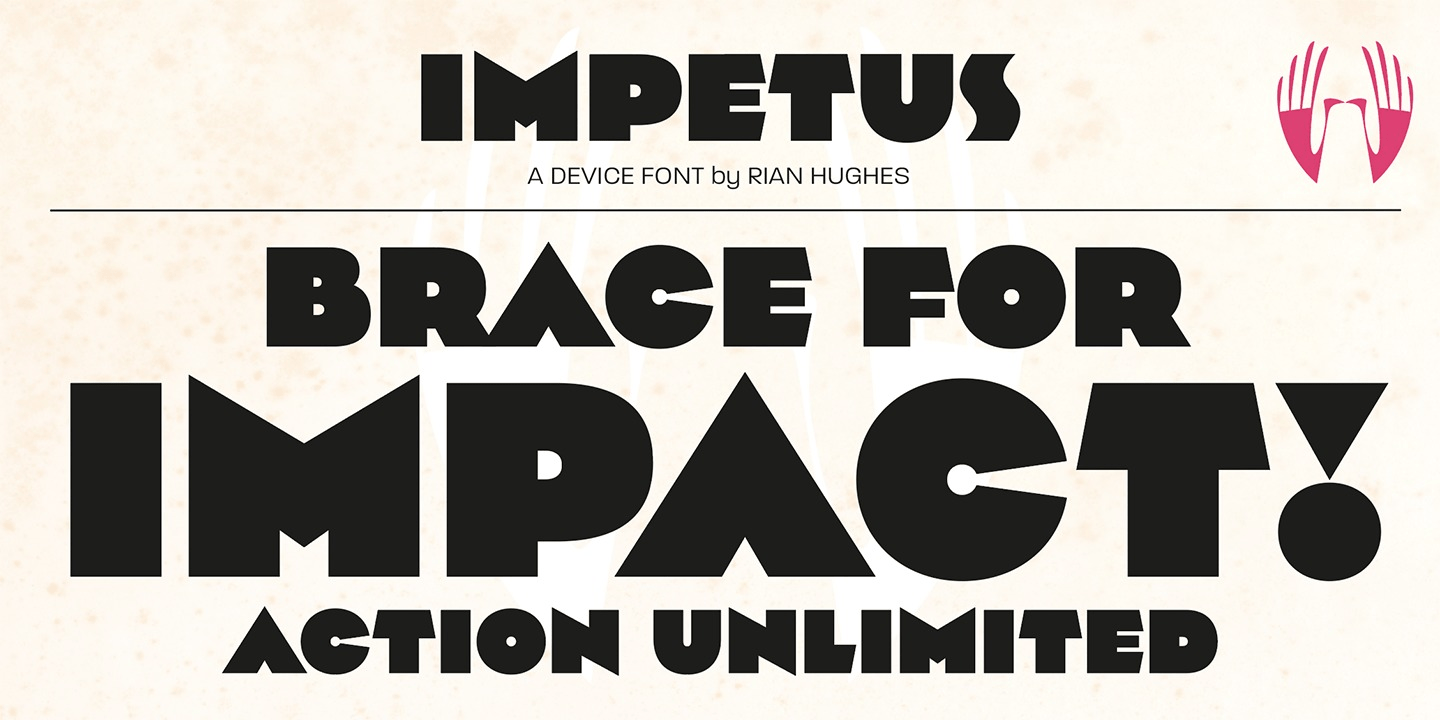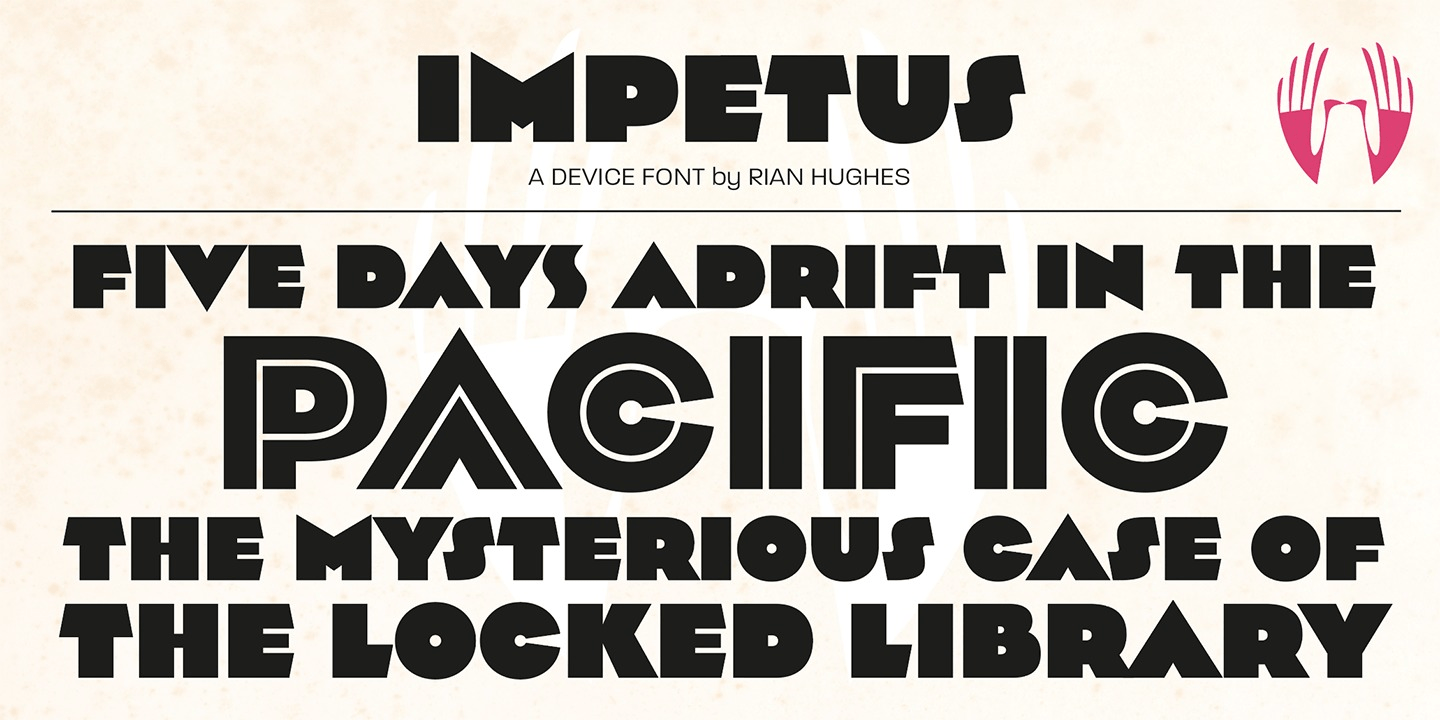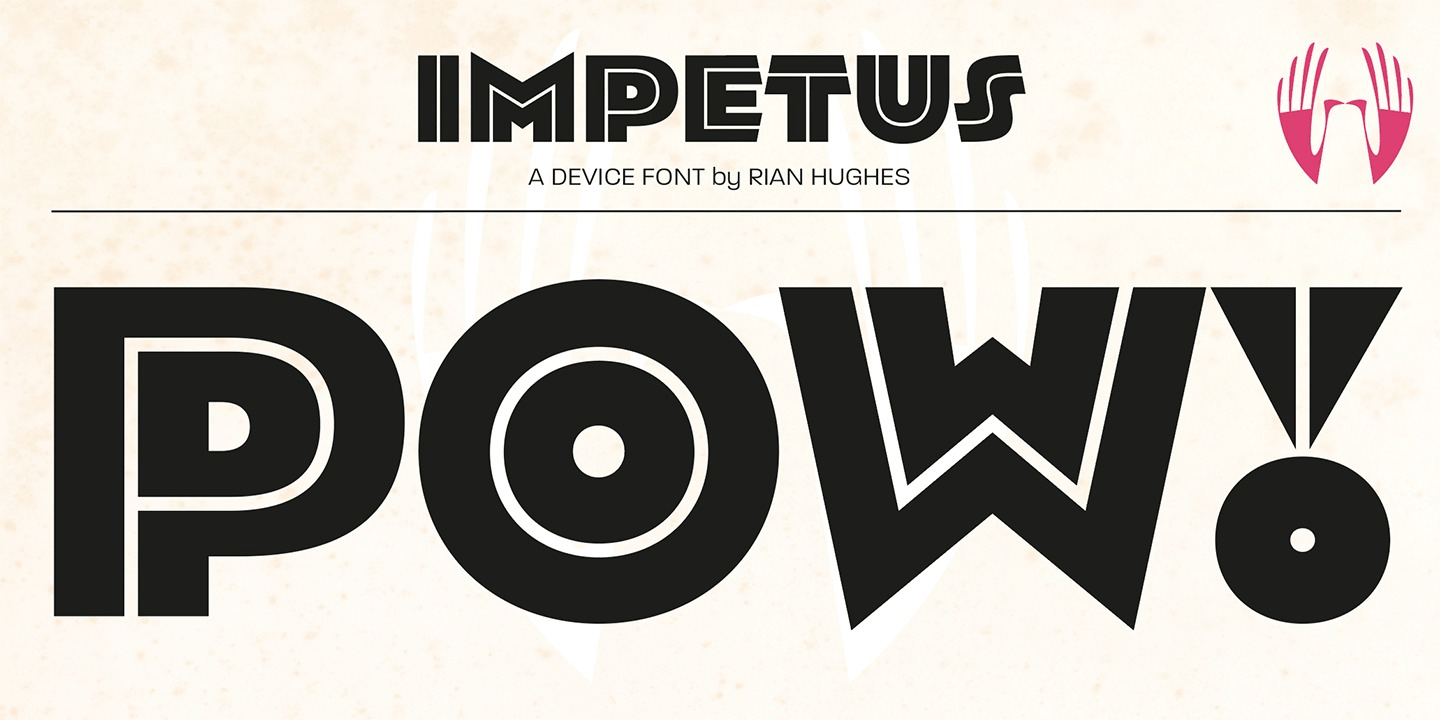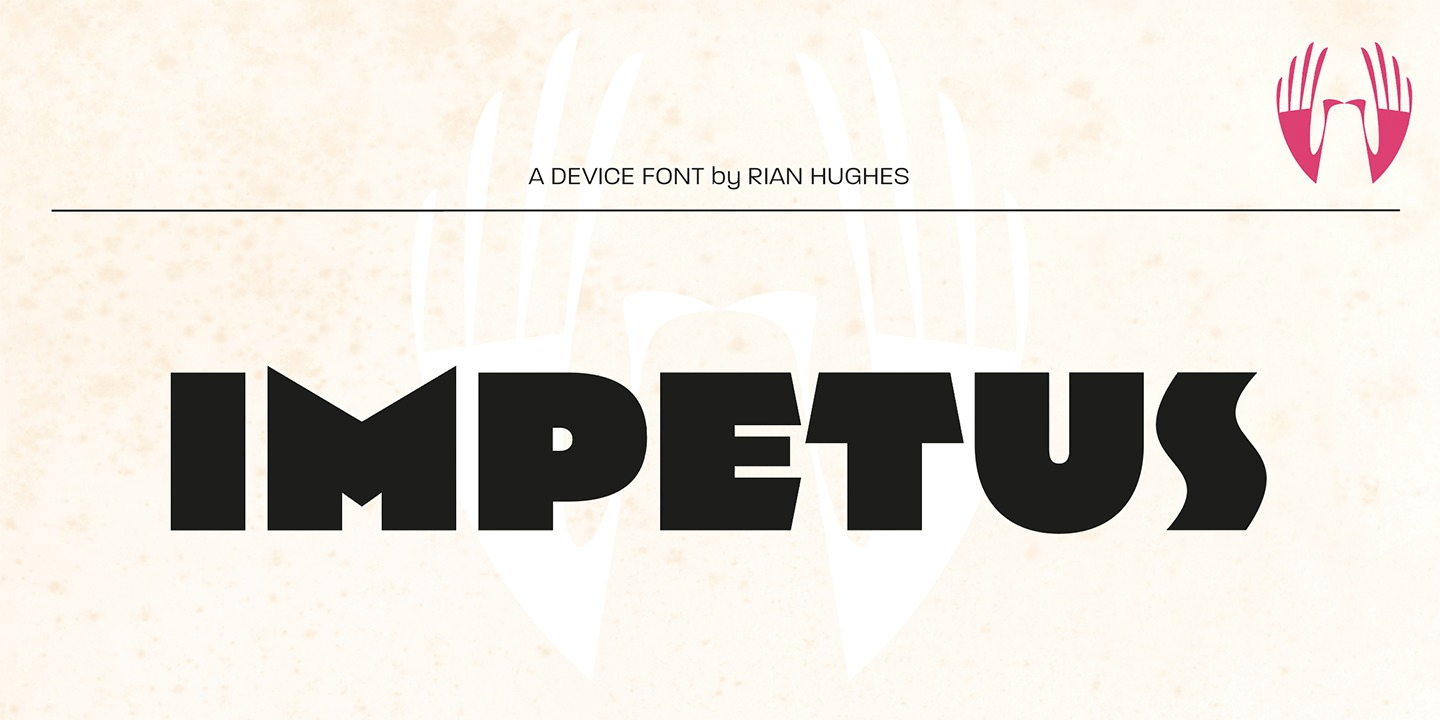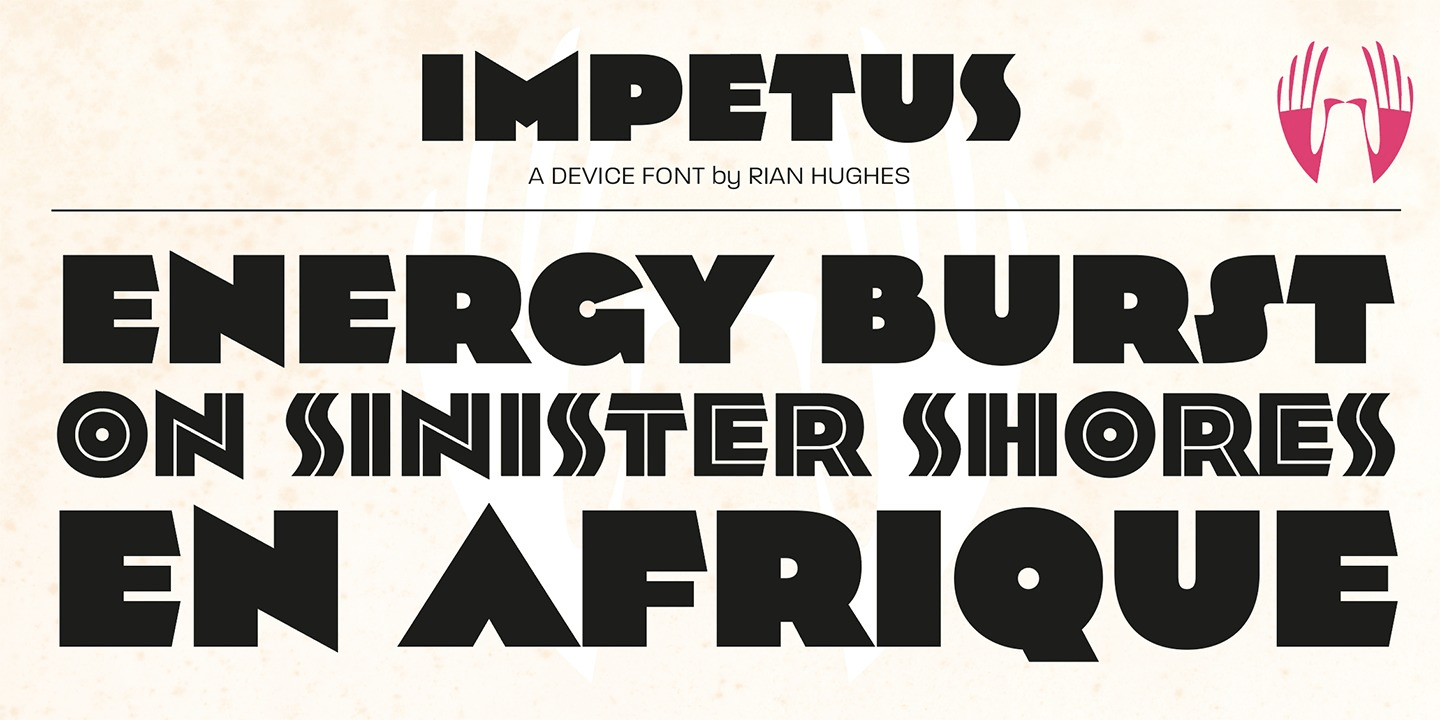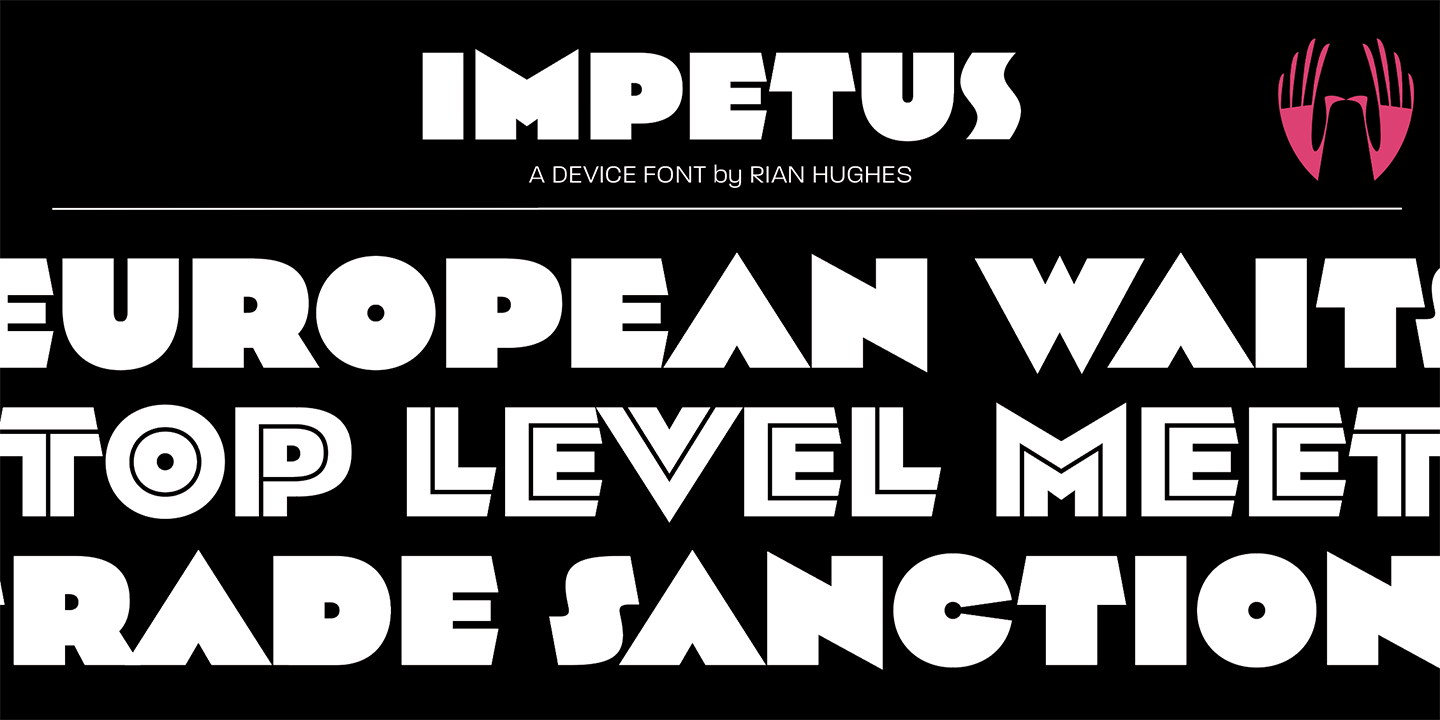
Impetus
Font Family by Device
Impetus is a powerful capitals-only geometric sans in a solid and inline variant. Built around a framework of a circle and square, it echoes angular Deco or Italian Futurist "moderne? forms, and is about as heavy as it is possible for a font to be. Alternate forms are provided in the lower-case keystrokes for the S, G, J and W, and there is also an alternate 1. The two styles can be combined in one setting for effect. Use Impetus where maximum impact is required.